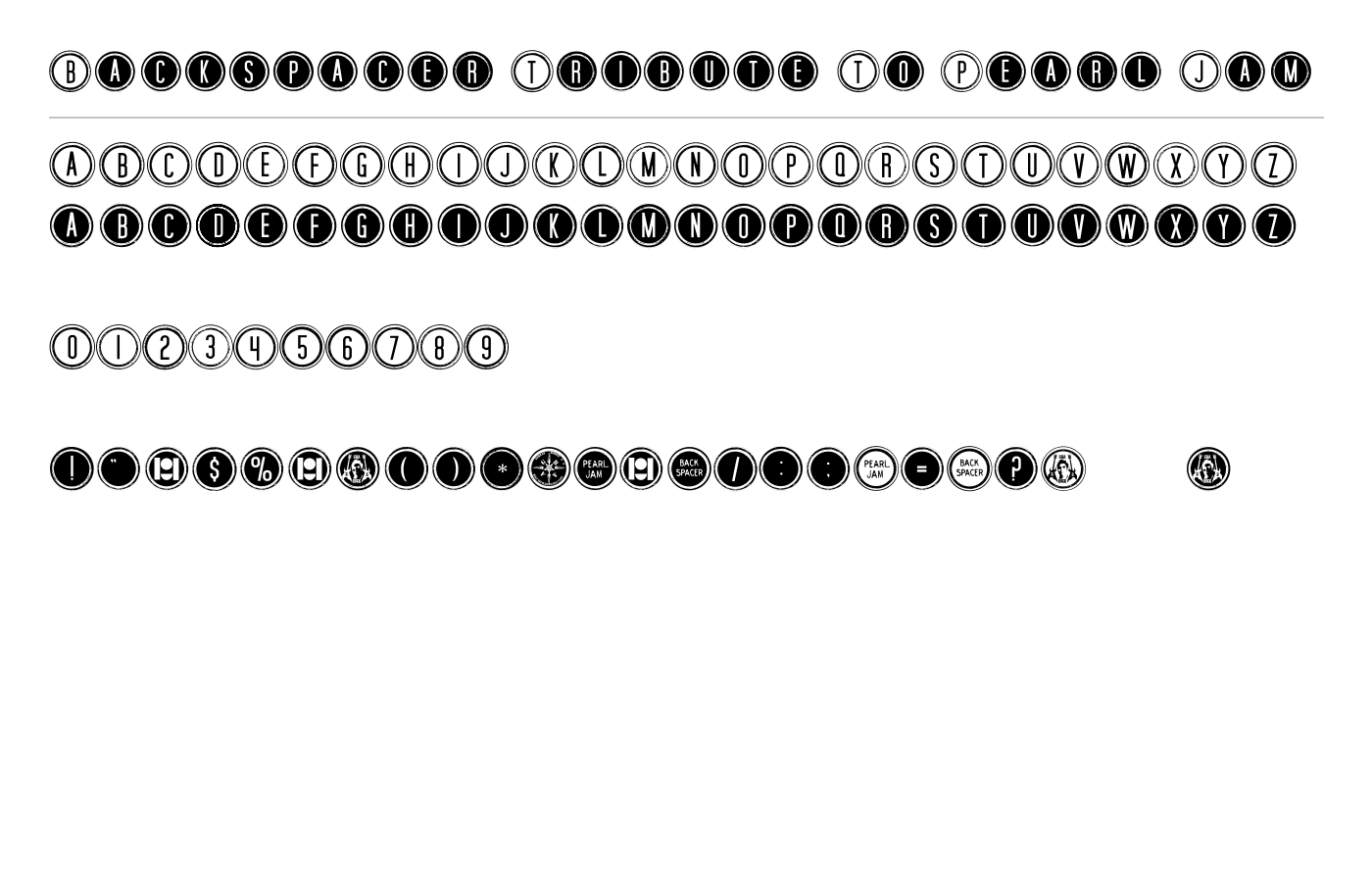
Backspacer Tribute To Pearl Jam is a bold, geometric sans serif font distinguished by its unique circular enclosure around each character, creating a retro typewriter-like aesthetic. With its strong, uniform strokes and playful punctuation marks, it conveys a vintage yet modern vibe perfect for music, poster headlines, and branding projects that seek a bold and distinctive identity. This font works well in designs that require attention-grabbing, artistic flair with a nostalgic touch.
Backspacer Tribute To Pearl Jam Font
About Backspacer Tribute To Pearl Jam Font